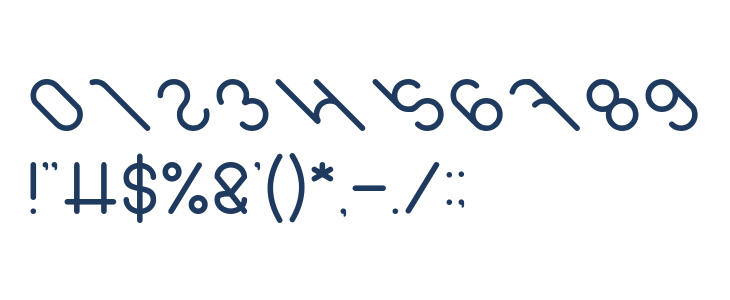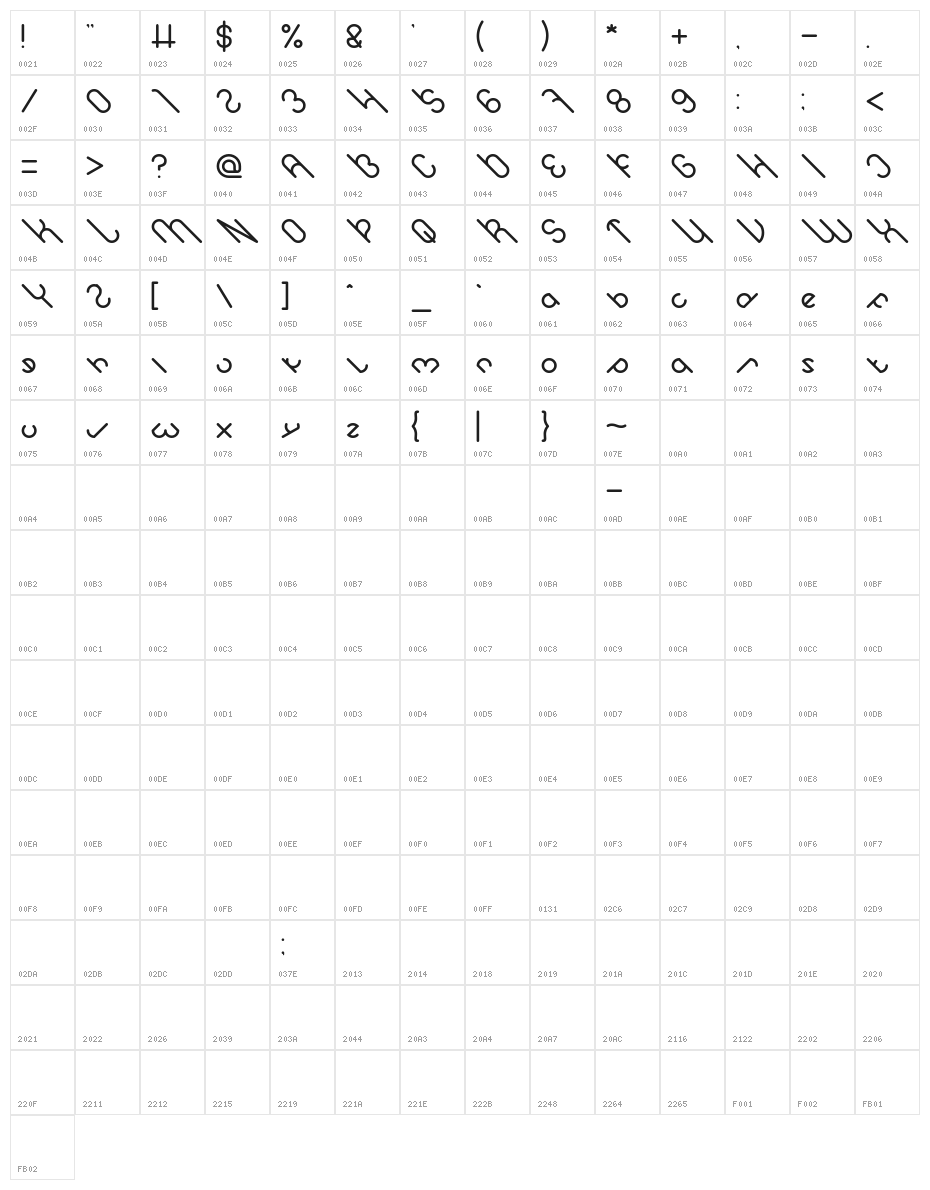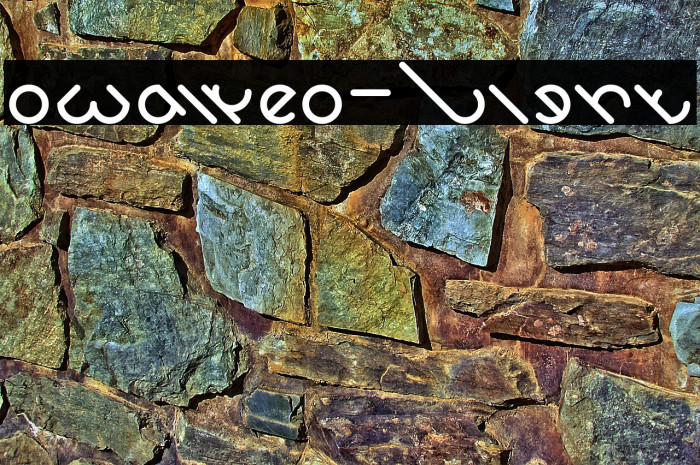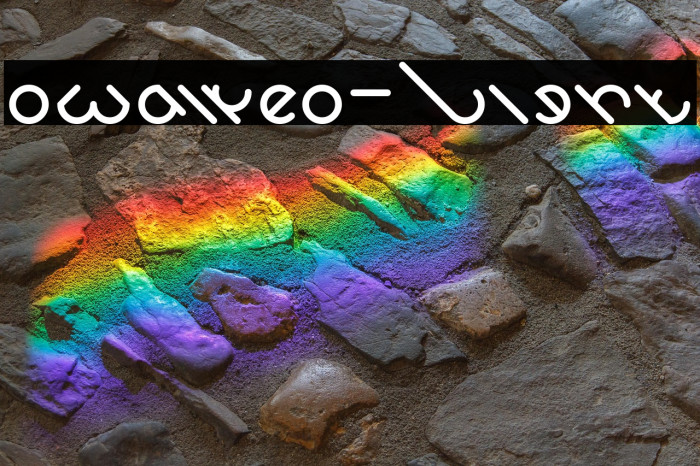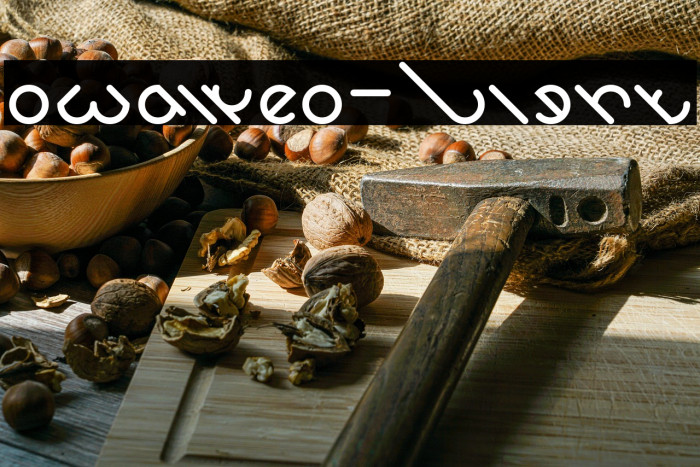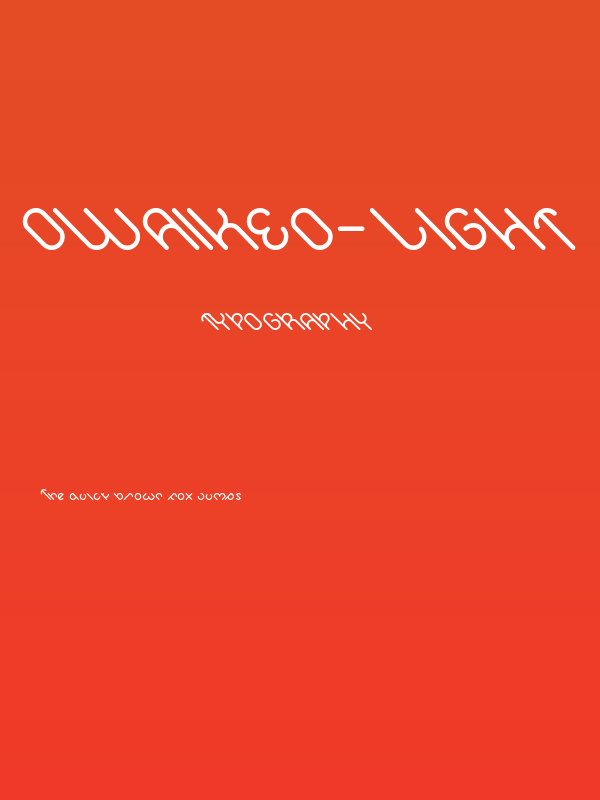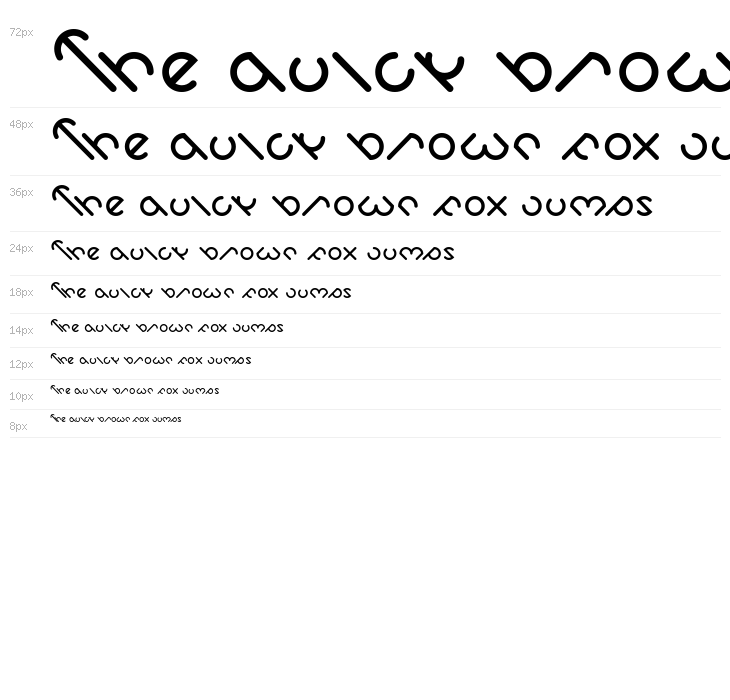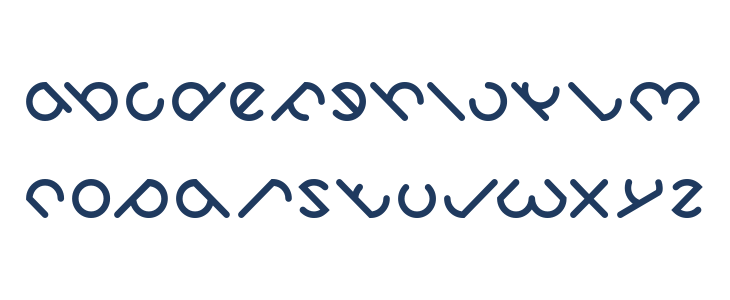
owaikeo-Light Font
owaikeo-Light Description
This font features a unique, flowing design with a modern twist. Each character is crafted with a continuous, smooth line that gives it a sense of motion and fluidity. The uppercase and lowercase letters maintain a consistent style, with rounded edges and a slight slant, adding to its dynamic appearance. The numerals and special characters are designed to match the overall aesthetic, ensuring a cohesive look across all text elements. This font's distinctive style makes it stand out, offering a fresh take on traditional letterforms.